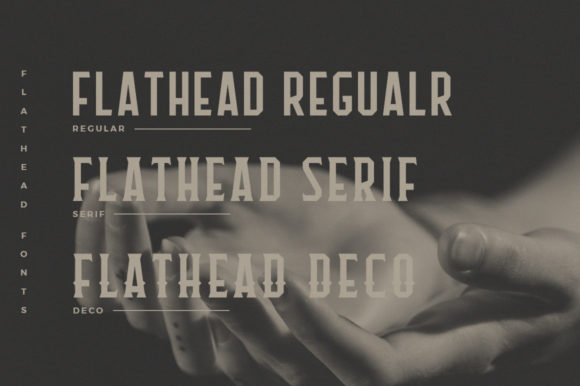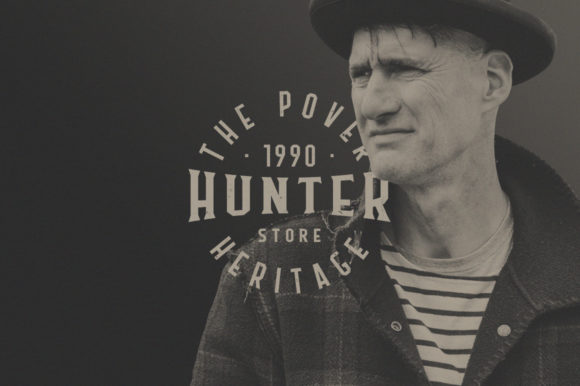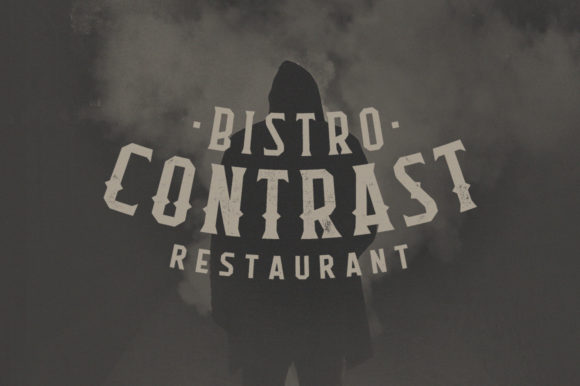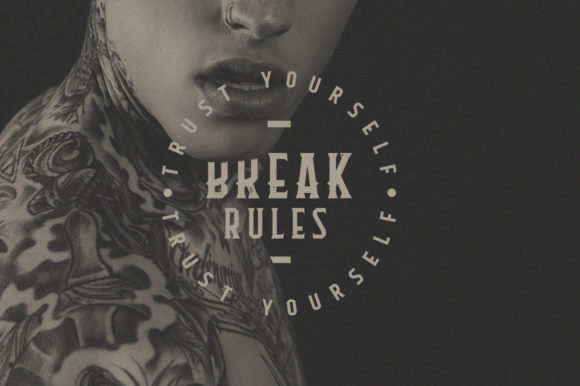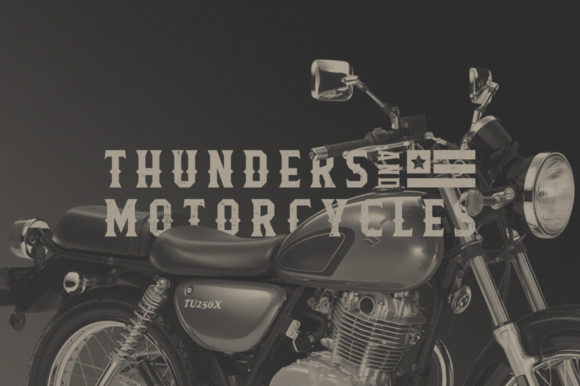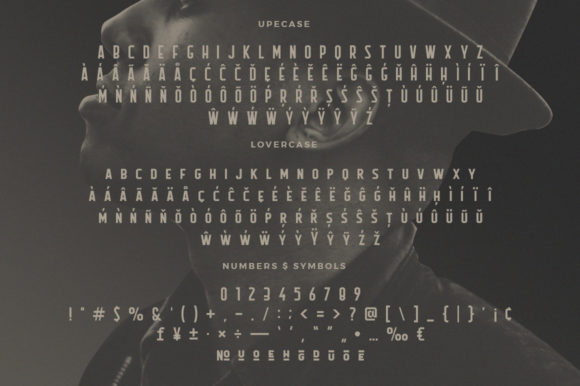
Discover the Timeless Charm of Flathead Font: Elevate Your Retro-Themed Projects
In the realm of typography, certain fonts stand out for their unique ability to evoke a specific era or aesthetic. Among these, the Flathead font has carved a niche for itself, particularly for designers and crafters aiming to infuse their projects with a vintage vibe. This article delves into the characteristics, uses, and benefits of the Flathead font, showcasing why it’s an excellent choice for retro-themed endeavors.
What is Flathead Font?
Flathead is an incredible sans serif font that boasts a vintage feel, making it a standout in the world of typography. Its design is reminiscent of classic typefaces from the early 20th century, yet it retains a modern simplicity that ensures its versatility across various design applications. The font’s bold and unique appearance allows it to command attention, making it perfect for headlines, titles, and any design element where impact is desired.
The Distinctive Features of Flathead Font
The Flathead font is distinguished by several key features:
- Sans Serif Design: The font’s clean lines and lack of serifs give it a contemporary look that pairs well with a wide range of design styles.
- Vintage Aesthetic: Despite its modern sans serif design, Flathead exudes a vintage charm that can add depth and character to any project.
- Bold Appearance: The font’s boldness makes it highly legible, even at smaller sizes, and it can effectively draw attention to key information.
- Versatility: Flathead can be used across various mediums, from digital platforms to print materials, making it a versatile choice for designers.
Using Flathead Font in Retro-Themed Projects
For designers and crafters working on retro-themed projects, the Flathead font offers a wealth of creative possibilities. Its vintage feel can help evoke the spirit of bygone eras, adding authenticity and charm to:
- Posters and Flyers: Use Flathead for headlines to grab attention and set the tone for your retro-themed posters and flyers.
- Logos and Branding: The font’s unique and bold appearance makes it suitable for logos and branding elements, especially for businesses aiming for a retro or vintage identity.
- Digital Graphics: Incorporate Flathead into your digital graphics, such as social media assets, website headers, and email newsletters, to add a touch of nostalgia.
- Crafting Projects: Whether you’re creating custom signs, banners, or DIY crafts, Flathead can add a professional and stylish touch to your handmade creations.
Tips for Maximizing the Impact of Flathead Font
To get the most out of the Flathead font in your designs:
- Pair it with Complementary Fonts: Combine Flathead with serif fonts or script fonts to create contrast and add visual interest to your designs.
- Experiment with Colors: While classic black and white are timeless, don’t be afraid to experiment with bold colors to enhance the vintage vibe.
- Play with Sizes: Utilize the font’s boldness by varying the size to create hierarchy and emphasis in your designs.
The Flathead font is a powerful tool for designers and crafters looking to imbue their projects with a unique, bold, and vintage feel. Its sans serif design, coupled with its retro aesthetic, makes it an excellent choice for a wide range of applications, from retro-themed posters and logos to digital graphics and crafting projects. By incorporating Flathead into your design arsenal, you can add a touch of nostalgia and sophistication to your work, ensuring it stands out in a crowded creative landscape.